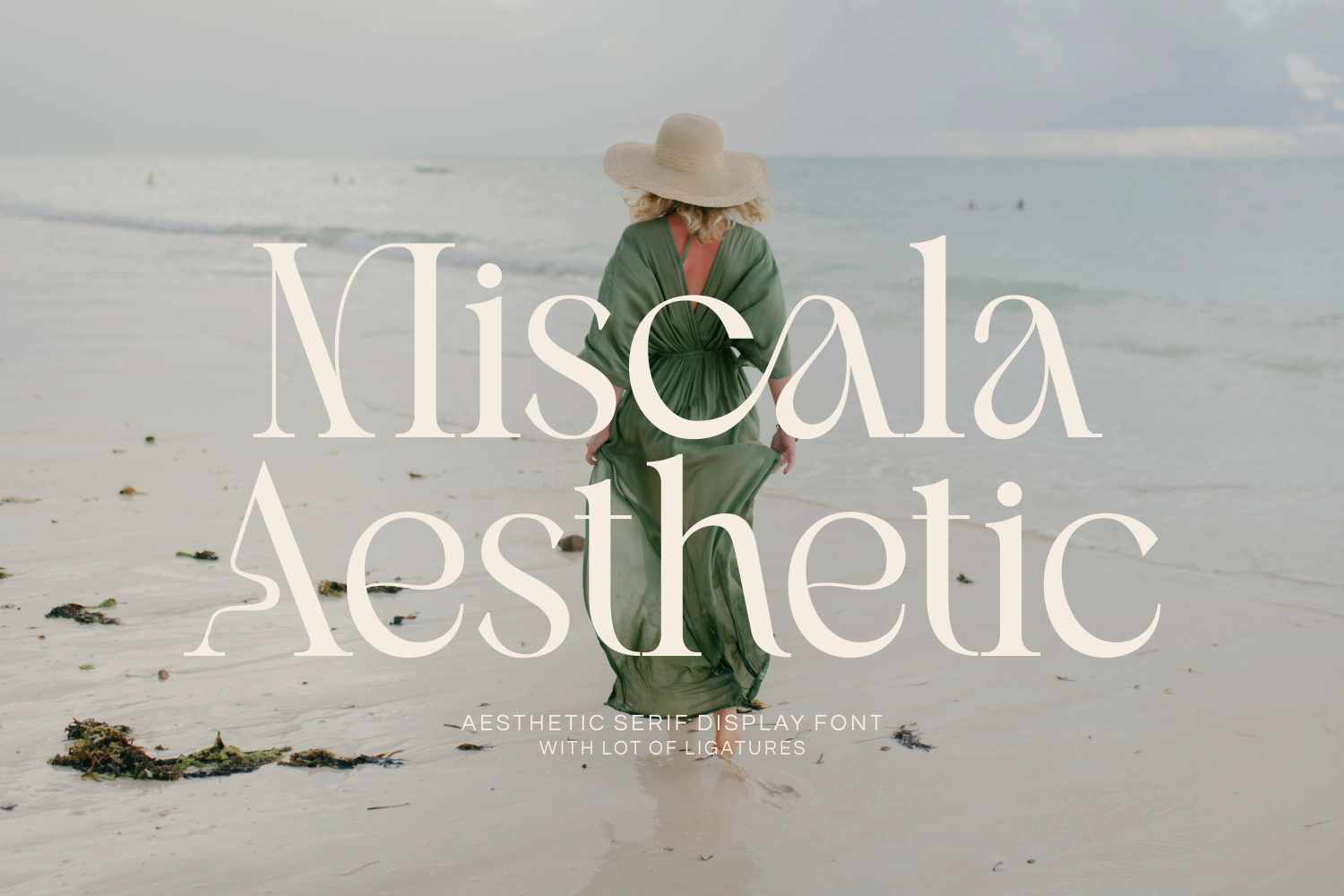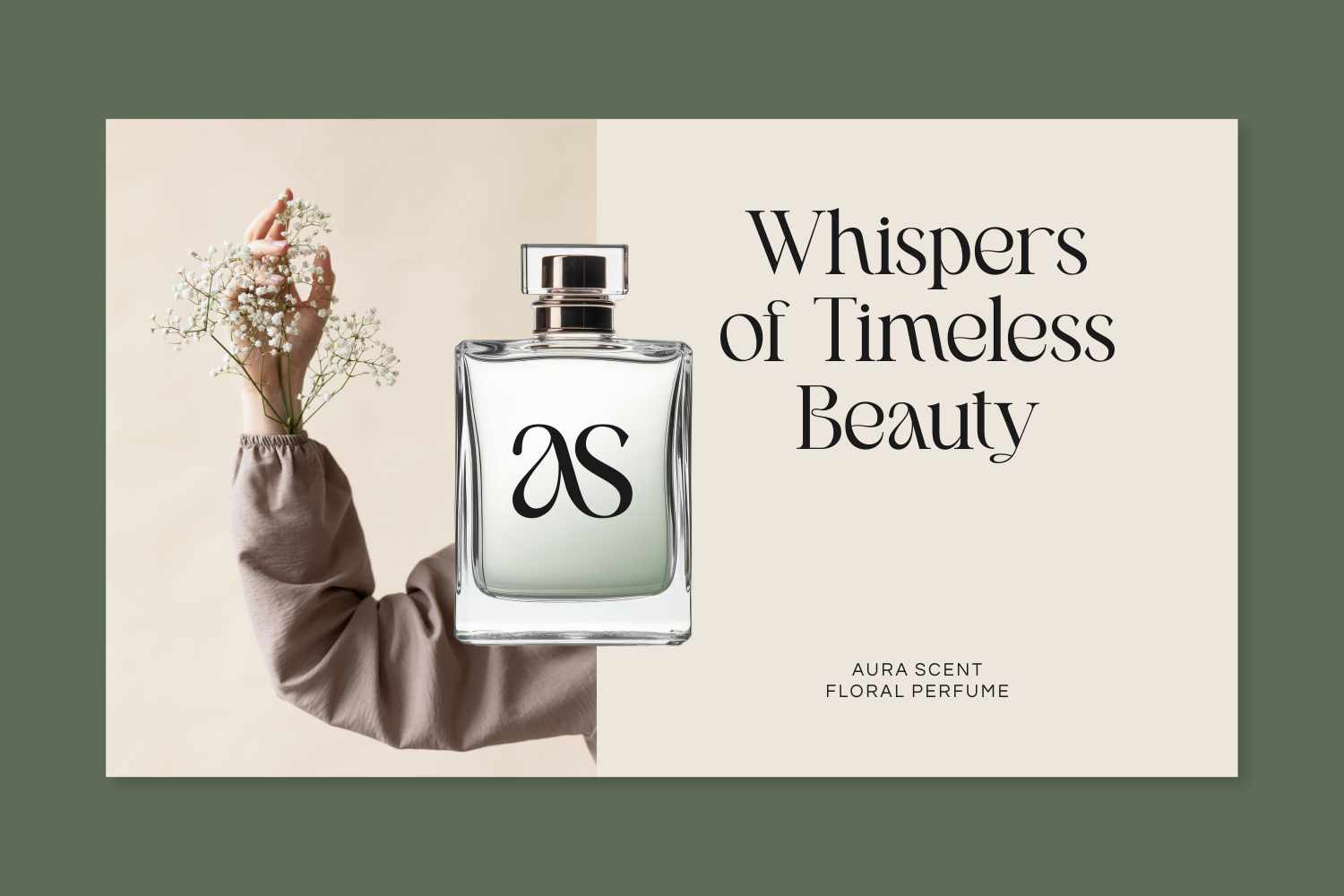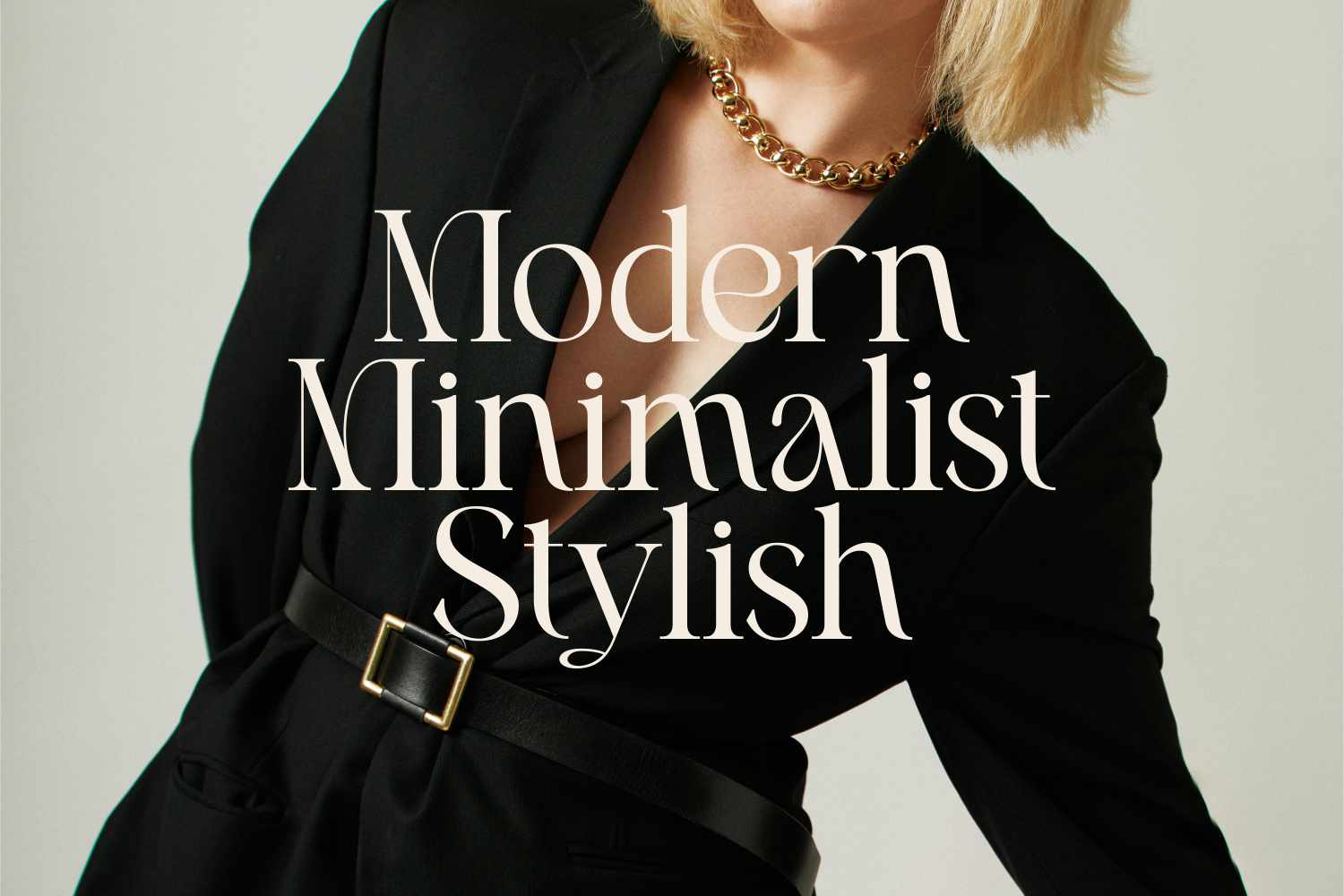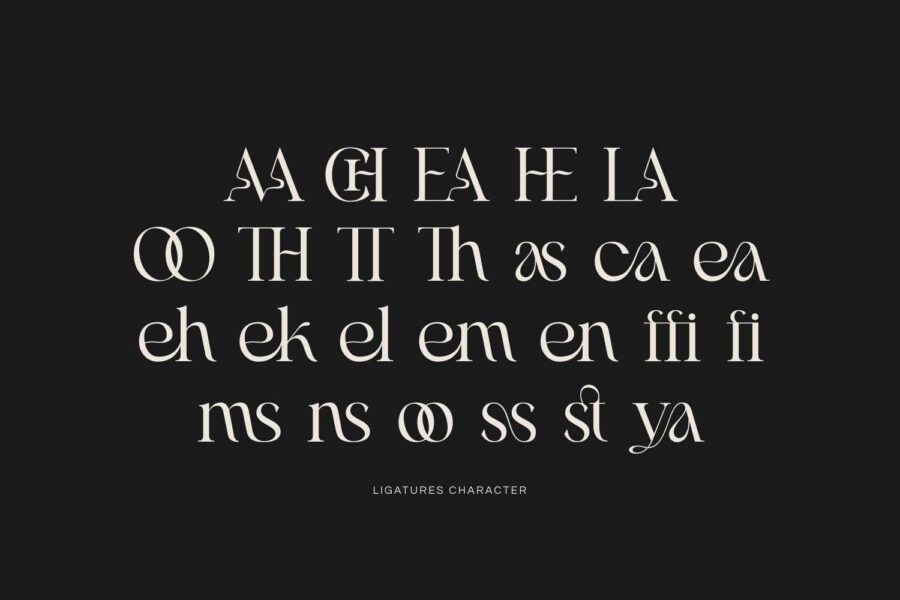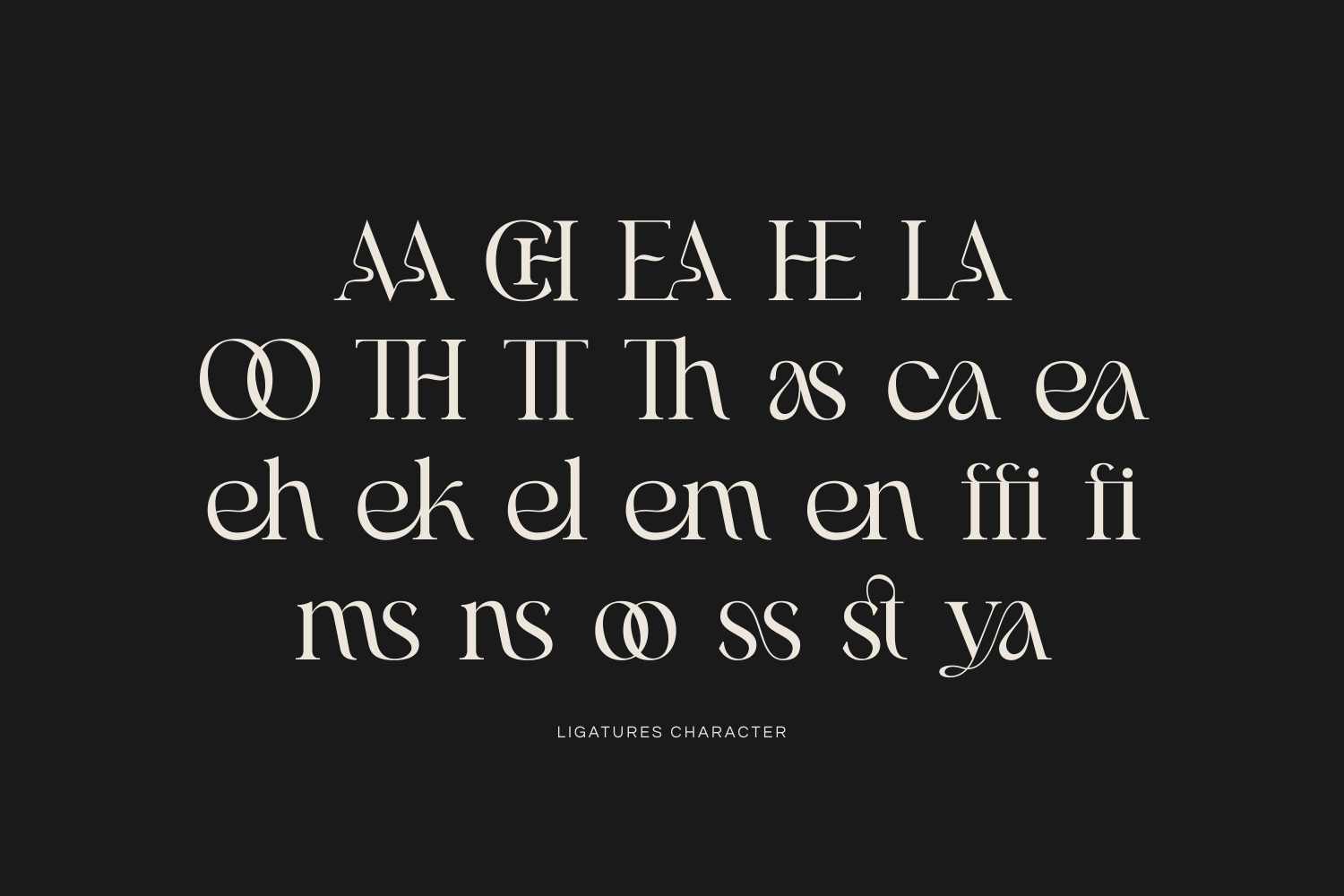
Miscala Aesthetic is an elegant serif display font that combines refined curves with artistic ligatures, creating a truly luxurious and sophisticated look. Its unique letterforms and graceful proportions make it perfect for high-end branding, editorial layouts, fashion designs, and premium packaging. With its distinctive style, this font exudes elegance and timeless charm, elevating any project with a touch of class.
Designed with a variety of stylish ligatures, Miscala Aesthetic offers endless creative possibilities to make your typography stand out. From modern minimalism to classic sophistication, it adapts beautifully to invitations, magazine covers, logos, and advertising. This font is an ideal choice for designers seeking a blend of artistic flair and professional aesthetics.